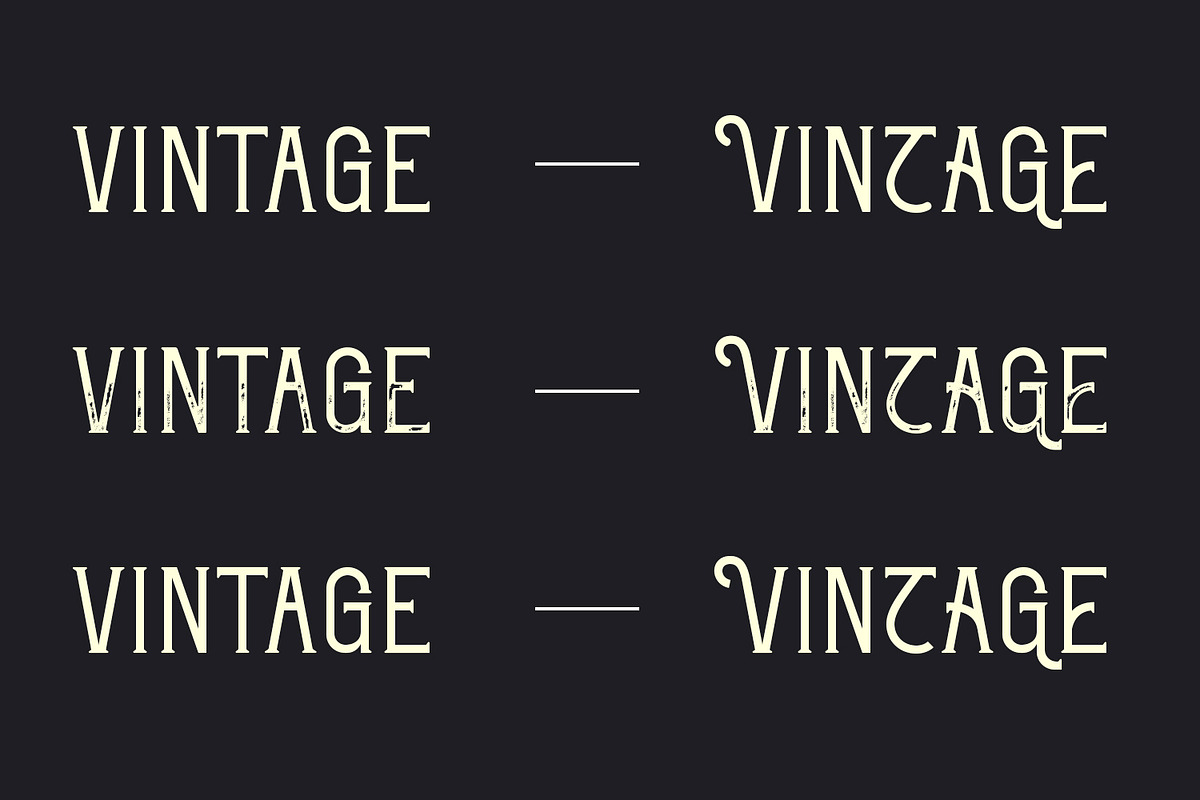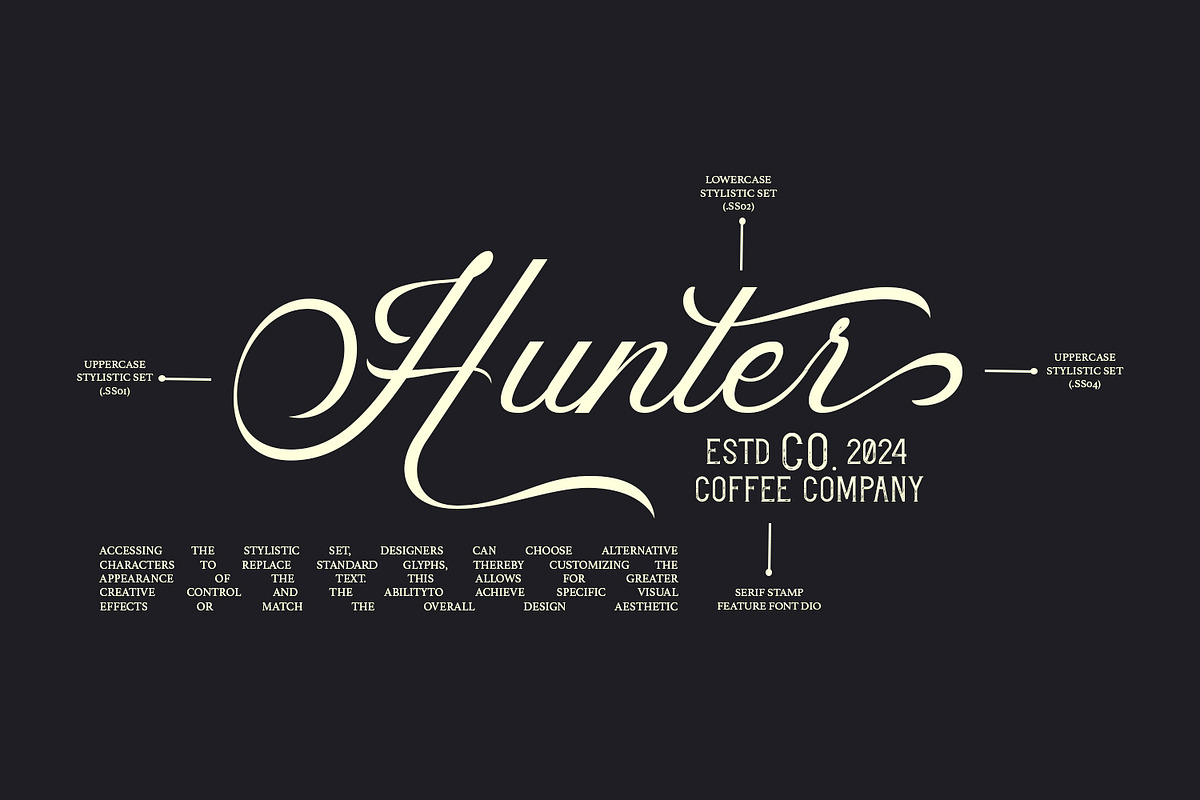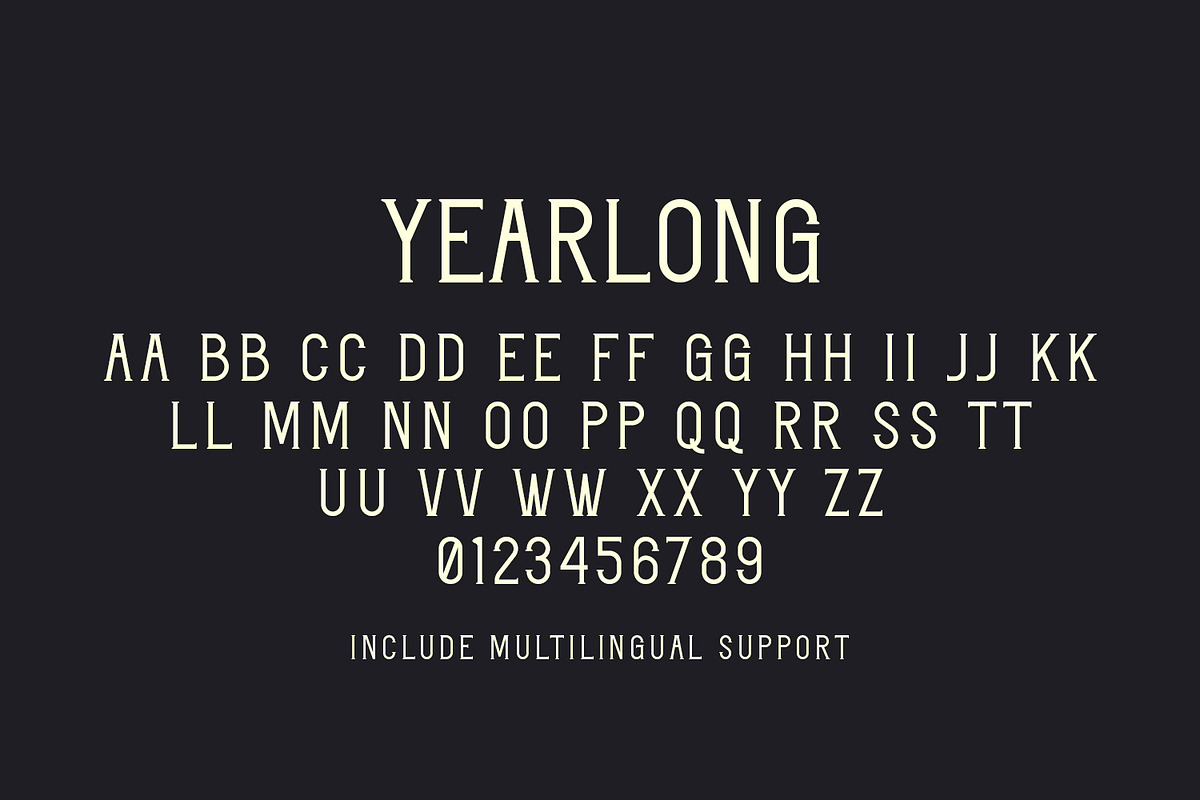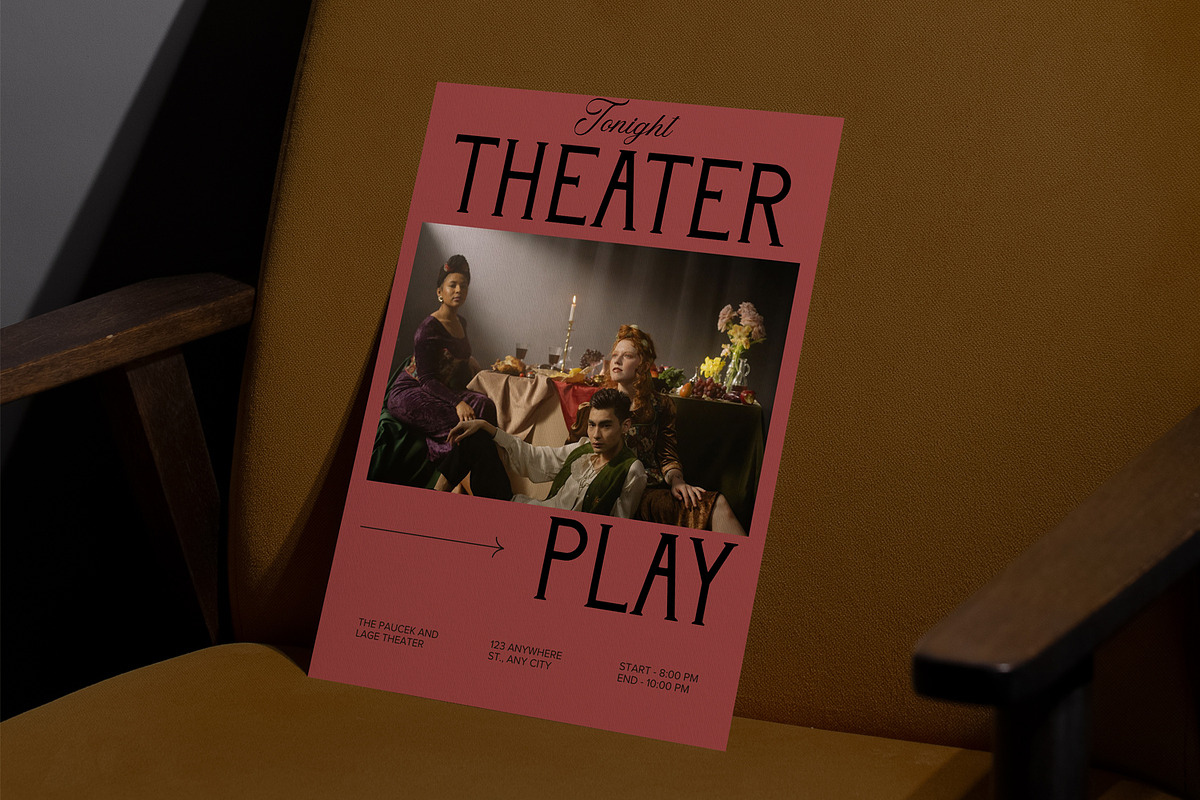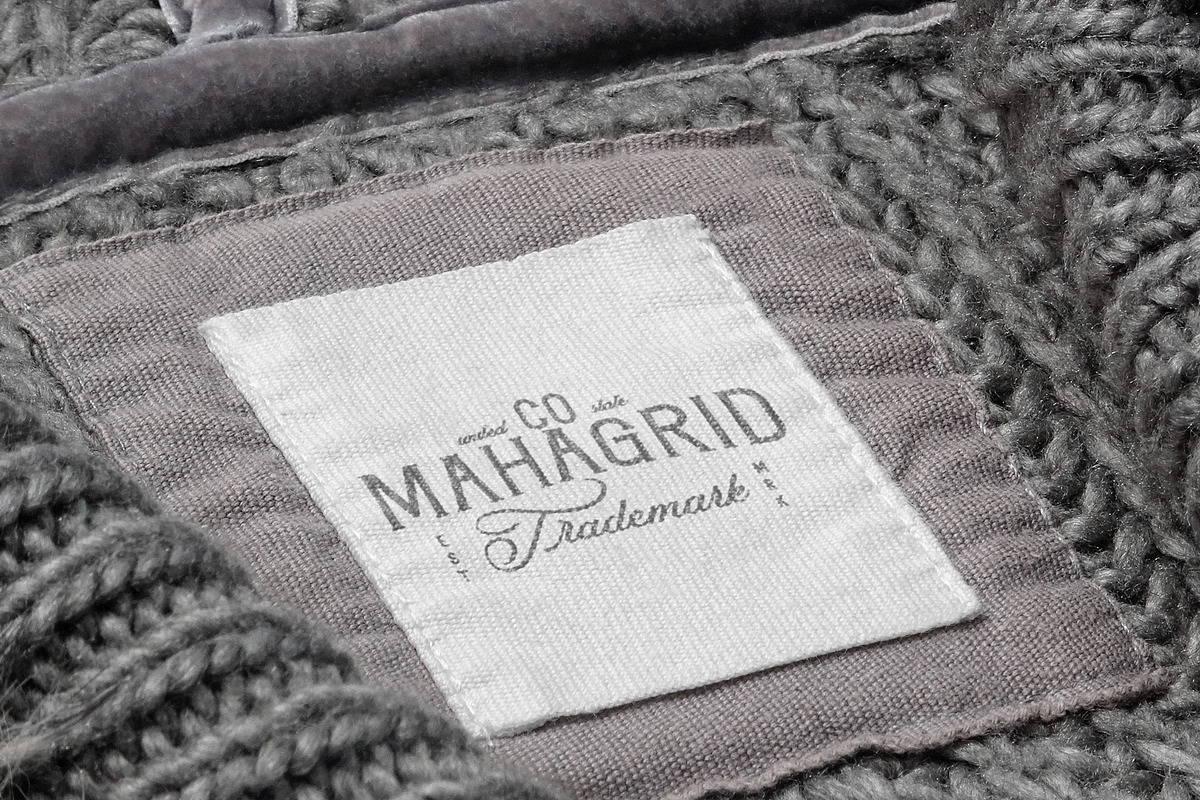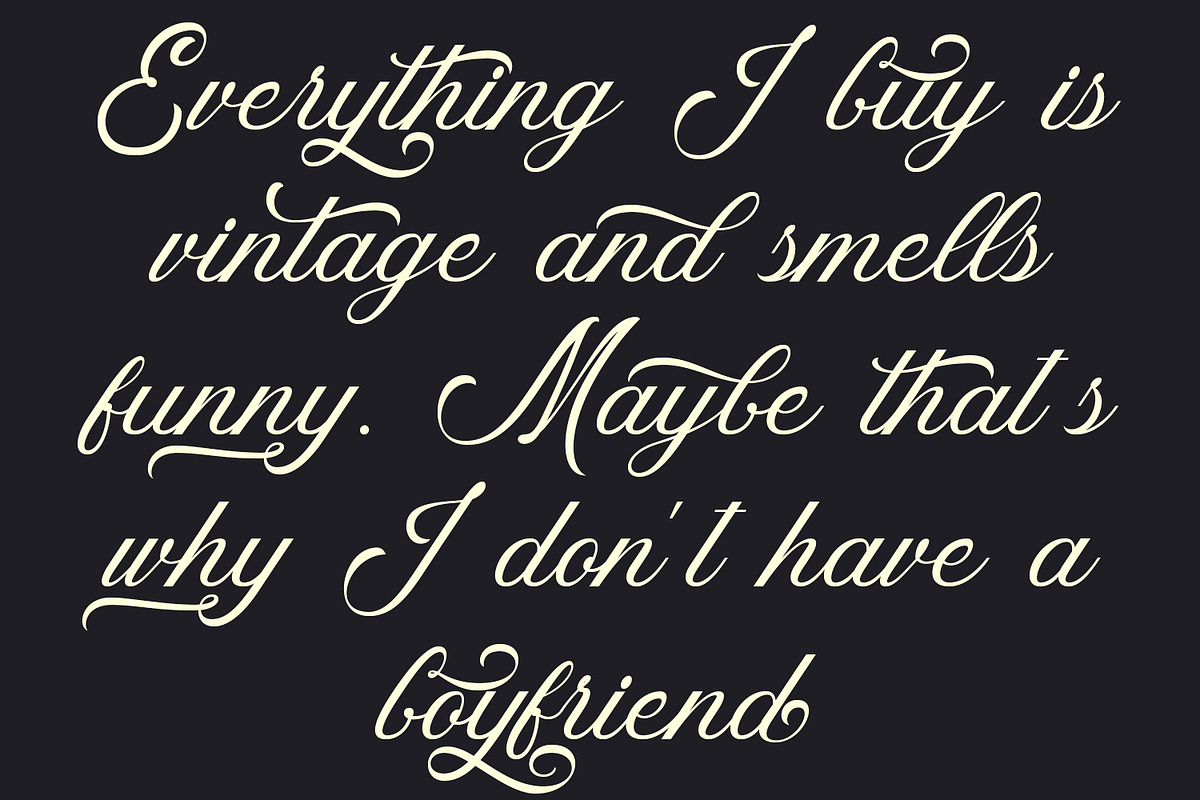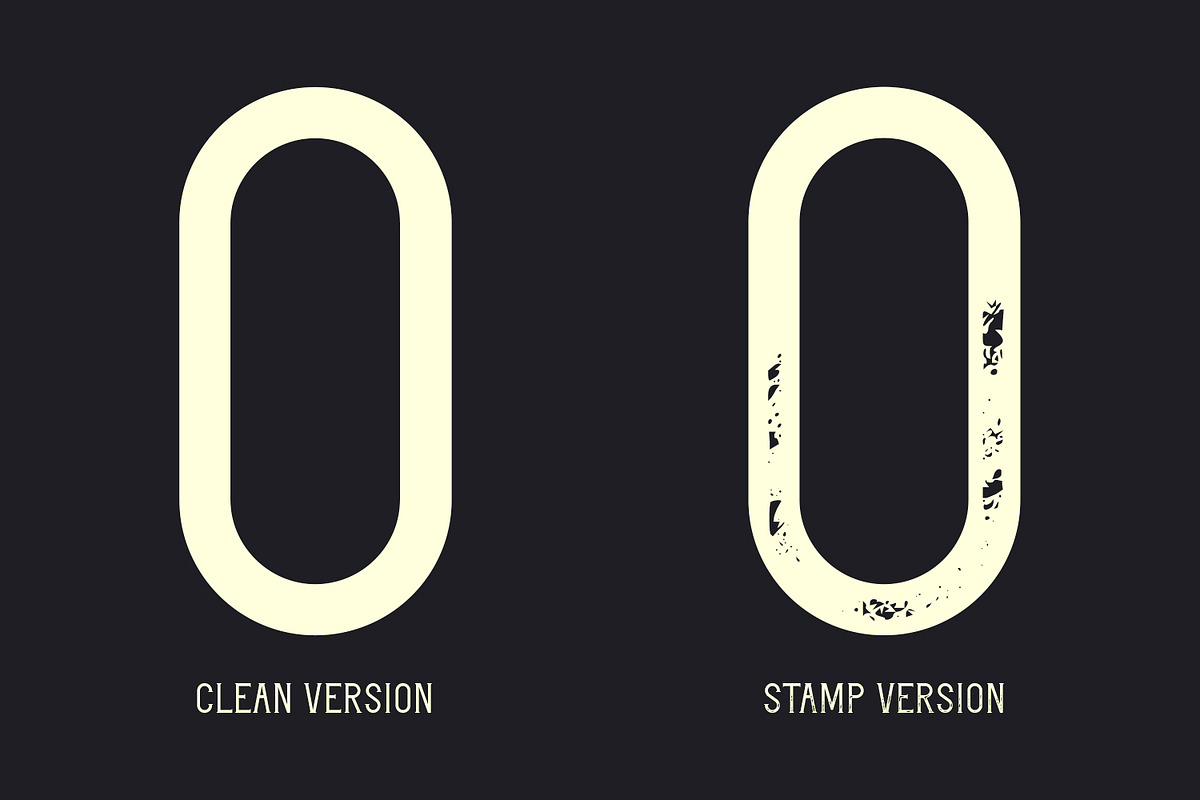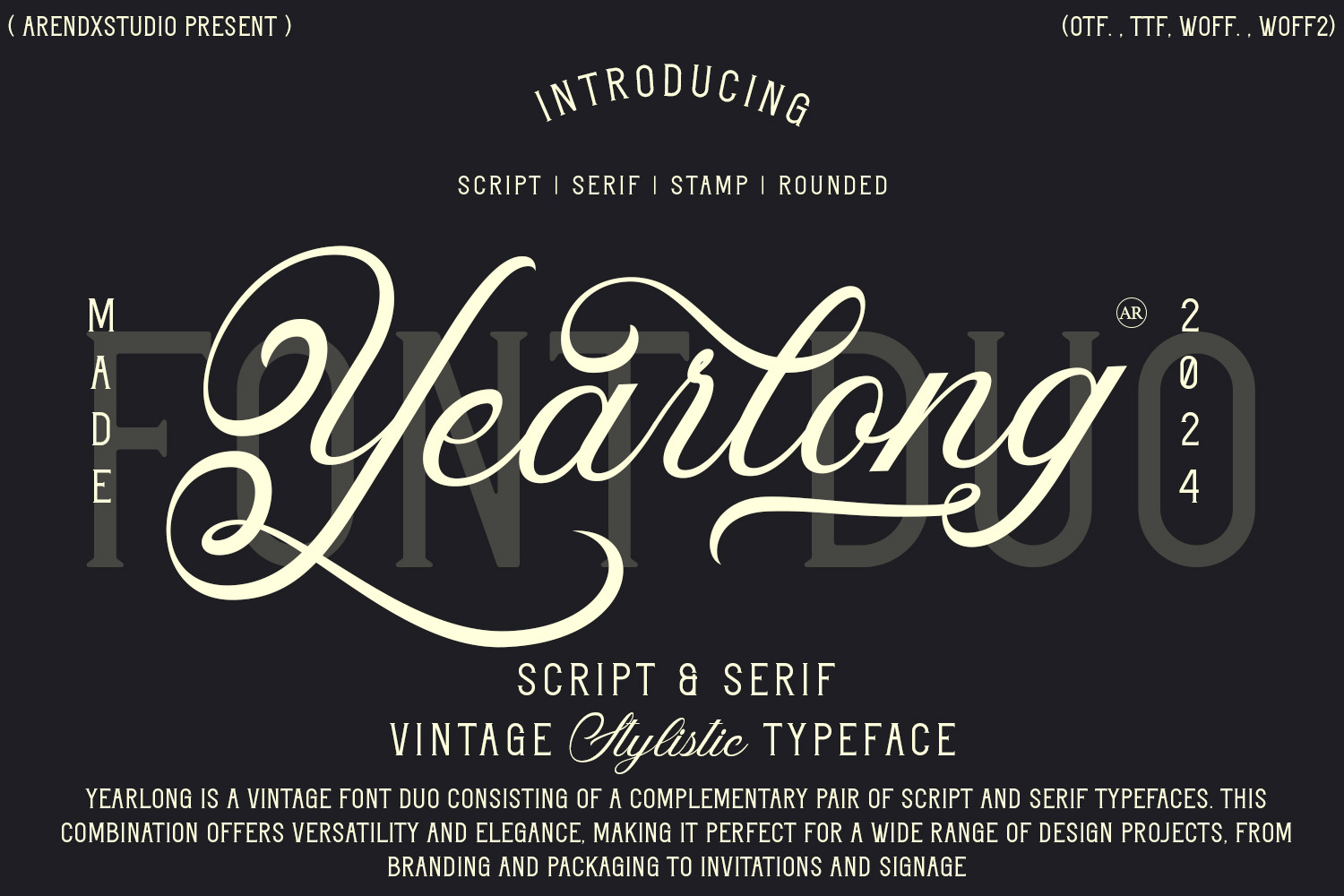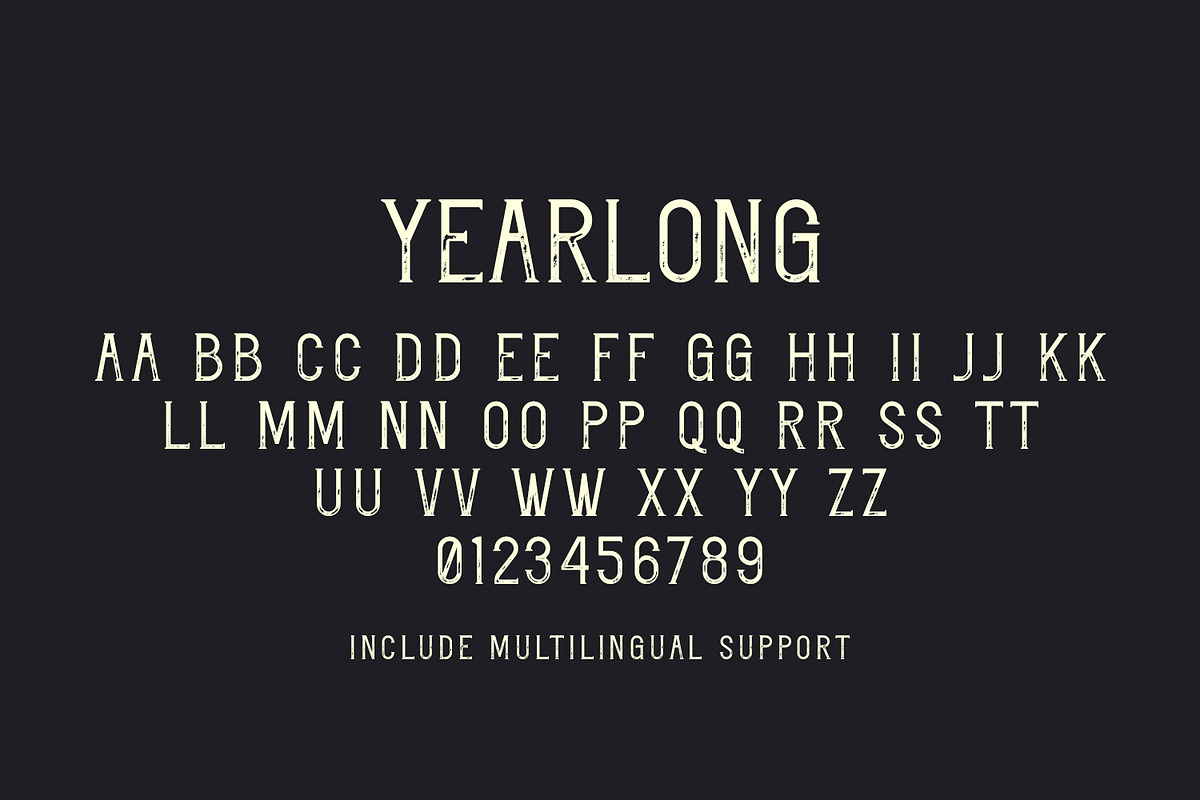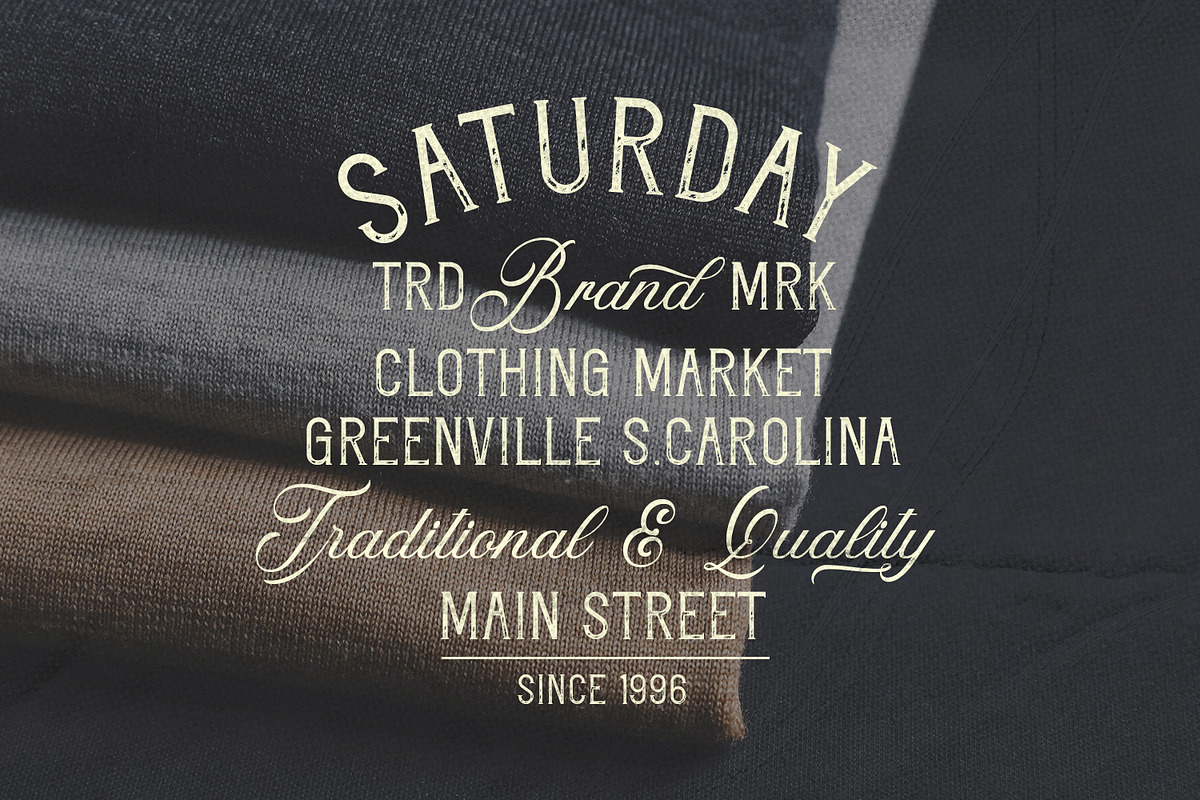
Yearlong Vintage Typeface
Explanation of Vintage Font Duo: Yearlong
Overview: "Yearlong" is a vintage font duo consisting of a complementary pair of script and serif typefaces. This combination offers versatility and elegance, making it perfect for a wide range of design projects, from branding and packaging to invitations and signage. The vintage aesthetic of "Yearlong" brings a nostalgic yet timeless appeal to any design.
Key Features of Yearlong Font Duo:
Script Typeface:
- Elegant and Flowing Design: The script component of "Yearlong" features elegant, flowing letterforms that evoke a sense of sophistication and charm. It mimics the look of classic hand-lettering, making it ideal for creating a personal and inviting feel.
- Smooth Connections: The script font is designed with smooth connections between characters, ensuring a cohesive and polished appearance.
- Stylistic Alternates: It often includes stylistic alternates and swashes, providing designers with options to enhance the text's visual interest and customization.
Serif Typeface:
- Classic and Sturdy Design: The serif component of "Yearlong" features classic, sturdy letterforms that offer a sense of reliability and tradition. It is inspired by vintage serif typefaces, providing a timeless and authoritative look.
- Elegant Details: The serif font includes elegant details such as serifs and subtle curves, which add to its vintage charm and readability.
- Versatility: The serif typeface is versatile, suitable for body text, headlines, and captions, making it a perfect companion to the script font.
Harmonious Pairing:
- Complementary Styles: The script and serif typefaces in "Yearlong" are designed to complement each other, creating a harmonious balance when used together. This pairing enhances the overall aesthetic and coherence of the design.
- Multiple Weights: Both typefaces may come in multiple weights, offering flexibility in design applications and enabling a variety of visual hierarchies.
Benefits of Using Yearlong Font Duo:
Versatile Applications:
- Branding and Logos: "Yearlong" is perfect for branding and logo design, where the script can add a personal touch and the serif can provide a strong, reliable foundation.
- Packaging and Labels: The vintage aesthetic of the duo makes it ideal for product packaging and labels, especially for artisanal, handcrafted, or heritage-inspired products.
- Invitations and Stationery: The elegant script combined with the classic serif creates a sophisticated look, perfect for wedding invitations, greeting cards, and other formal stationery.
Enhanced Visual Appeal:
- Vintage Charm: The vintage design of "Yearlong" adds a nostalgic charm to any project, evoking a sense of history and tradition.
- Elegant and Timeless: The combination of script and serif offers an elegant and timeless look, ensuring the design remains stylish and relevant over time.
Design Flexibility:
- Creative Freedom: The duo offers creative freedom, allowing designers to mix and match the script and serif typefaces to create unique compositions.
- Customization Options: With stylistic alternates, swashes, and multiple weights, "Yearlong" provides ample options for customization and experimentation.
Conclusion
"Yearlong" is a vintage font duo that combines the elegance of a script typeface with the classic reliability of a serif typeface. This combination makes it an ideal choice for a wide range of design projects, from branding and packaging to invitations and signage. The harmonious pairing of these two typefaces offers versatility, enhanced visual appeal, and a timeless aesthetic that will elevate any design project. By using "Yearlong," designers can achieve a sophisticated and nostalgic look that stands out and resonates with audiences.